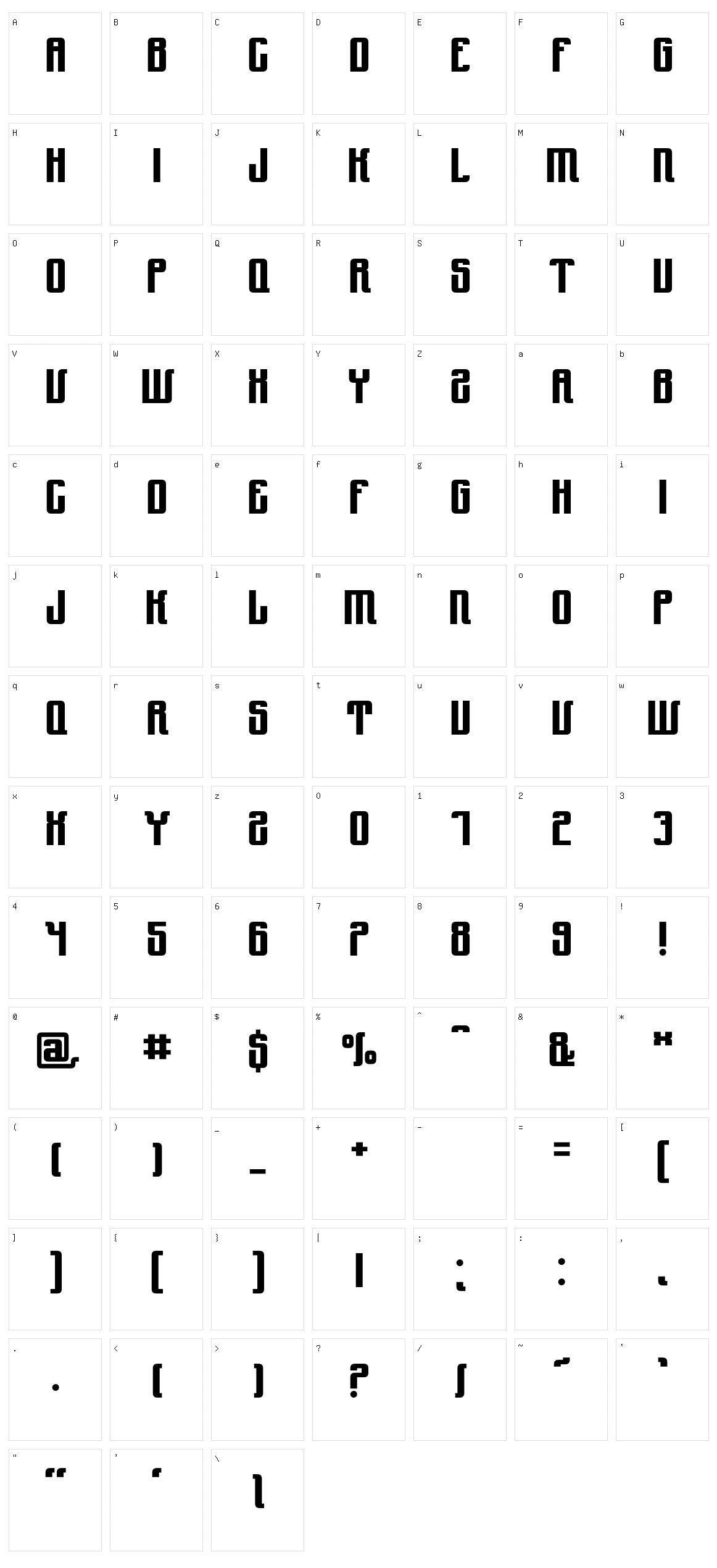
Yndu
Designed by: Nowak.tv
Description: The free font Yndu is carefully designed by Nowak.tv, showcasing a thoughtful balance of creativity and usability and belongs to the Techno font family. When you download the ZIP file, it contains only 34.62 KB of font files, making it lightweight and quick to download. Please review the license details below to understand permitted usage and distribution rights. If license information is not available, we recommend using this font for personal projects only or contacting the author directly for commercial usage permissions.